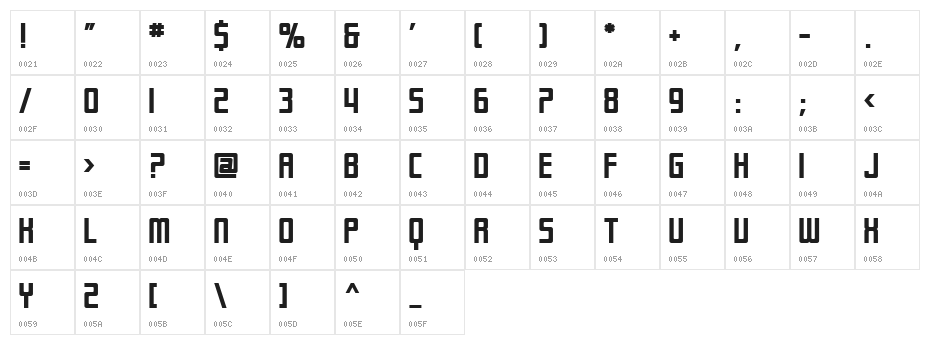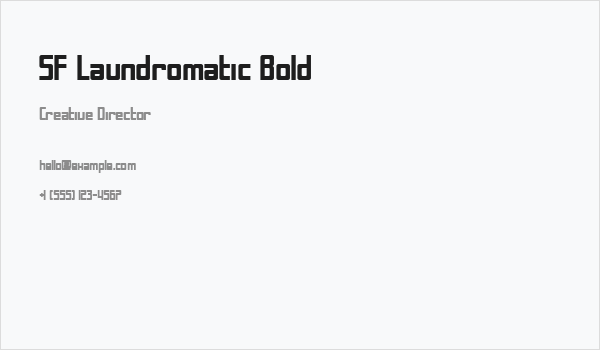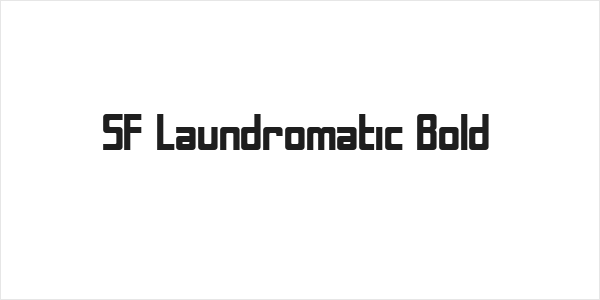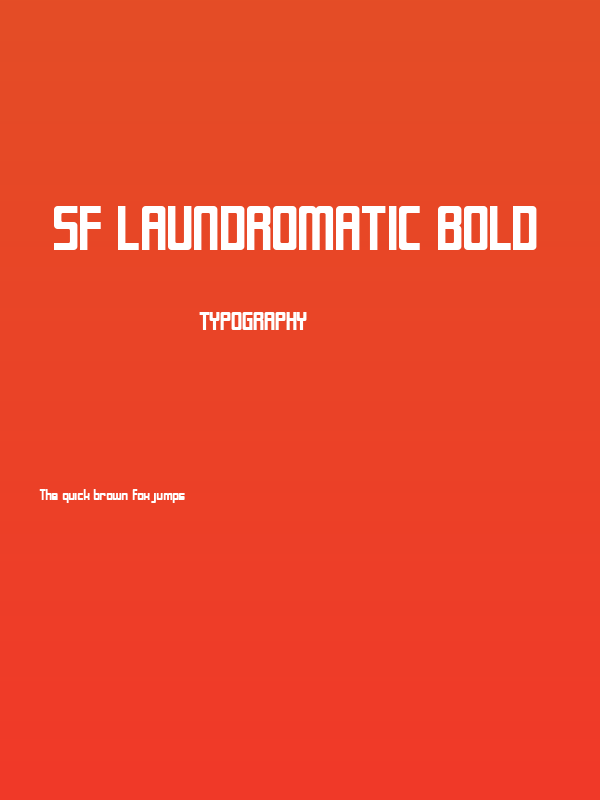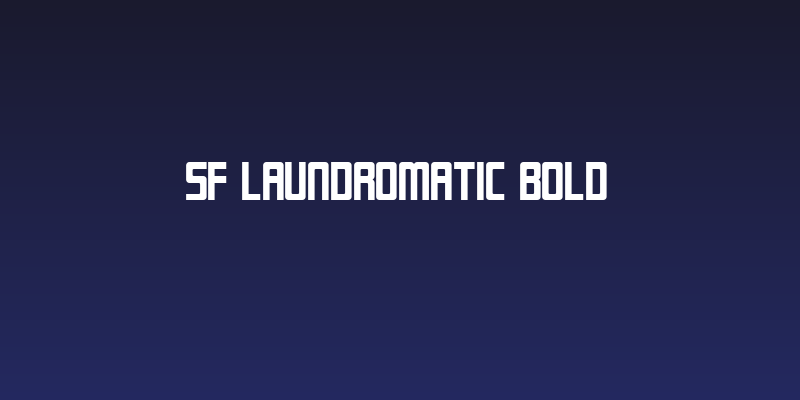
SF Laundromatic Bold Font
SF Laundromatic Bold Description
This font features a bold, geometric design with a modern and industrial feel. The characters are constructed with uniform stroke widths, giving it a strong and solid appearance. The letters are slightly condensed, enhancing the compact and efficient look. The uppercase and lowercase letters maintain a consistent style, with rounded corners that soften the overall aesthetic. The numerals and special characters follow the same design principles, ensuring a cohesive look across all glyphs. This font is ideal for projects that require a bold and impactful statement.
| Proposed Projects | Ideal for branding, signage, posters, and any design requiring a strong, modern look. |